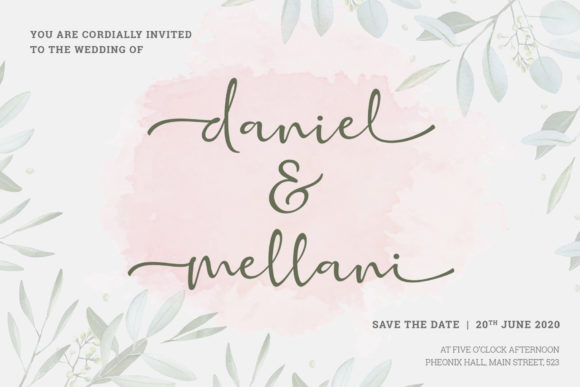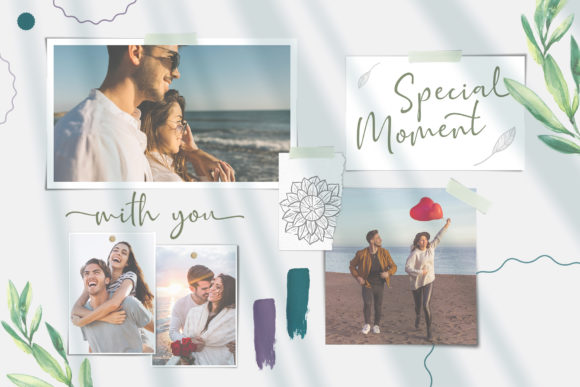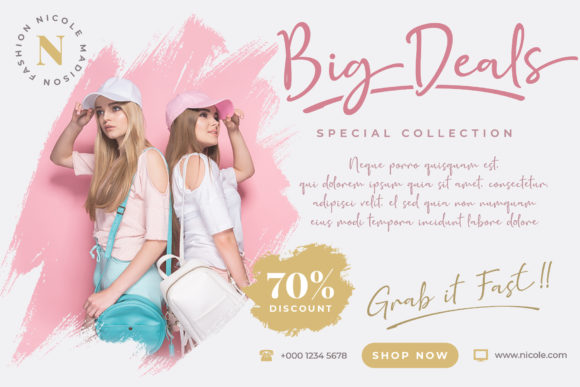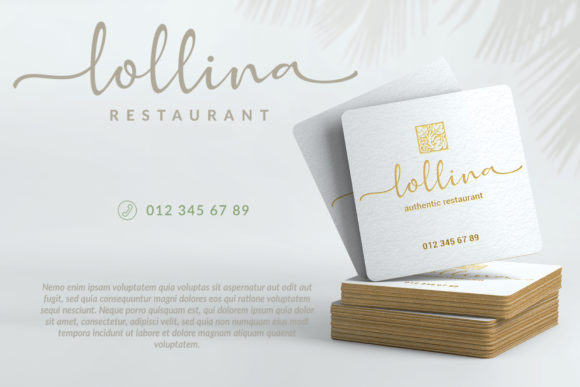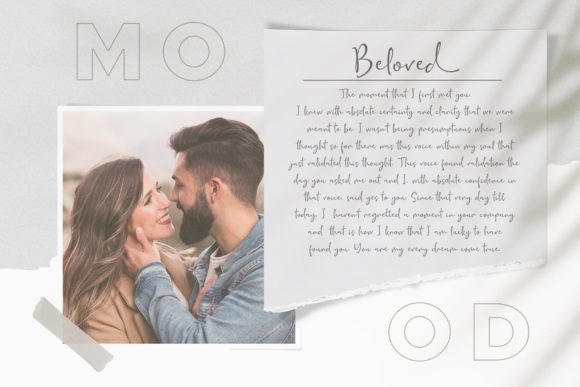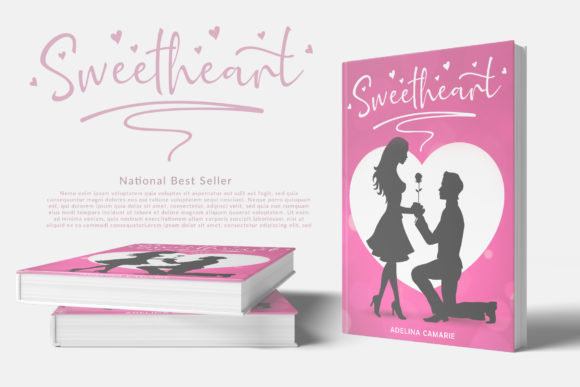
Discover the Charming Adinda Melia Font: A Modern Calligraphy Delight
Are you a designer, crafter, or simply a font enthusiast looking for a unique and captivating typography to elevate your creative projects? Look no further than the Adinda Melia Font, a lovely modern calligraphy font that combines the elegance of traditional calligraphy with the warmth and personality of natural handwriting.
What is Adinda Melia Font?
Adinda Melia is a beautifully crafted modern calligraphy font that boasts a charming character, perfect for adding a touch of sophistication and whimsy to your designs. With its fluid strokes and organic feel, this font is ideal for creating eye-catching headings, titles, and quotes that are sure to leave a lasting impression.
Key Features of Adinda Melia Font
- Modern Calligraphy Style: Adinda Melia features a modern calligraphy style with a focus on clean lines, flowing curves, and elegant letterforms.
- Natural Handwriting Touch: The font incorporates a touch of natural handwriting, giving it a warm and approachable feel that’s perfect for designs that require a personal touch.
- Charming Character: Each letterform in Adinda Melia has a unique and charming character that adds personality to your designs.
- Highly Versatile: This font is suitable for a wide range of design applications, from branding and advertising to packaging, invitations, and more.
Uses for Adinda Melia Font
Adinda Melia Font is an incredibly versatile typography that can be used in various design projects, including:
- Logos and Branding: Create a lasting impression with a custom logo or brand identity that showcases the elegance and charm of Adinda Melia.
- Wedding Invitations and Stationery: Add a touch of romance and whimsy to your wedding invitations, stationery, and other paper goods with this beautiful font.
- Social Media Graphics: Elevate your social media presence with eye-catching graphics, quotes, and headings that feature the Adinda Melia Font.
- Packaging and Product Design: Use Adinda Melia to create stunning packaging and product designs that stand out on store shelves.
Tips for Using Adinda Melia Font
To get the most out of Adinda Melia Font, here are some tips to keep in mind:
- Experiment with Font Sizes: Adinda Melia looks great in a variety of font sizes, from large headings to smaller body text.
- Pair with Complementary Fonts: Combine Adinda Melia with complementary fonts to create visually appealing typography combinations.
- Play with Colors and Textures: Add an extra layer of depth and interest to your designs by experimenting with different colors and textures.
| Font Name | Adinda Melia Font |
| Author | Subectype |
In conclusion, the Adinda Melia Font is a stunning modern calligraphy font that offers a unique blend of elegance, charm, and personality. Whether you’re a designer, crafter, or simply a font enthusiast, this font is sure to inspire your creativity and elevate your designs. So why wait? Get inspired by the charming character of Adinda Melia Font and take your designs to the next level!